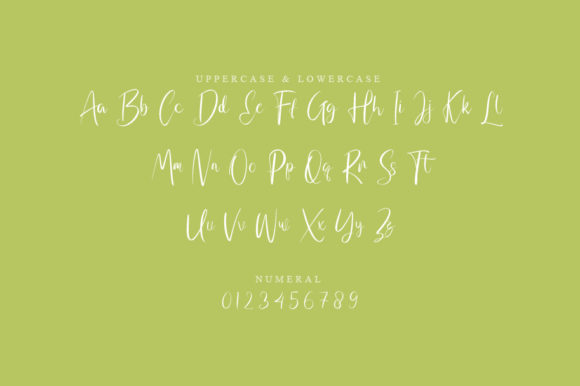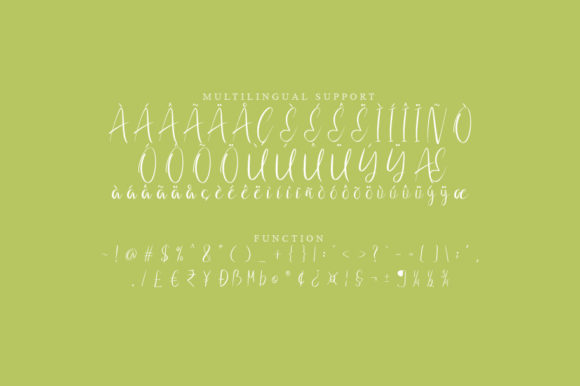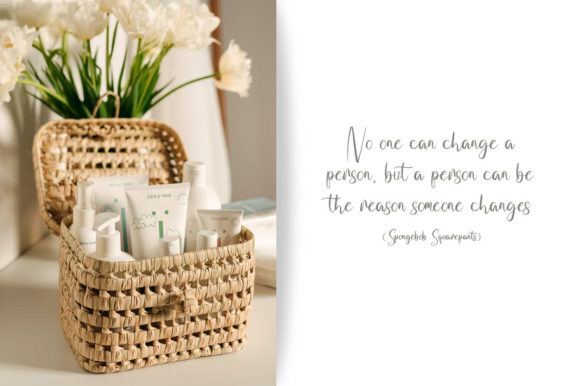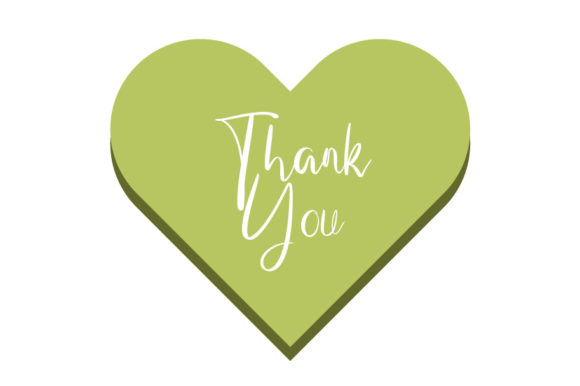
Erety Script Font: Elevate Your Designs with a Timeless Handwritten Touch
In the world of typography, a well-chosen font can make all the difference in creating visually stunning designs. For designers and crafters looking to add a personal touch to their work, Erety Script Font is an excellent choice. This lovely and timeless handwritten font is perfect for creating eye-catching logos, branding, and quotes that stand out from the crowd.
The Unique Charm of Erety Script Font
What sets Erety Script Font apart is its distinctive and beautiful touch. Every letter has been carefully crafted to possess a unique character, giving your designs a sense of personality and flair. Whether you’re working on a logo, branding materials, or social media graphics, Erety Script Font will breathe life into your creations.
Key Features of Erety Script Font
- Handwritten Elegance: Erety Script Font boasts a natural, handwritten look that adds warmth and elegance to any design.
- Unique Letterforms: Each letter has been meticulously designed to be distinct and full of character, ensuring your designs stand out.
- Versatility: Perfect for a wide range of projects, from logos and branding to quotes and social media graphics.
- Timeless Appeal: The classic look of Erety Script Font ensures it won’t go out of style, making it a valuable asset for your design library.
Uses of Erety Script Font
Erety Script Font’s versatility makes it suitable for various design projects. Here are some of the best ways to utilize this beautiful font:
Logo Design
Creating a memorable logo is crucial for any brand. Erety Script Font, with its unique and elegant handwritten style, can help you craft a logo that is both distinctive and captivating. The font’s readability and charm make it ideal for logotypes that need to convey a sense of sophistication and approachability.
Branding Materials
Consistency in branding is key to establishing a strong brand identity. Using Erety Script Font across your branding materials, such as business cards, letterheads, and packaging, can help you maintain a cohesive and professional look. The font’s elegance and timelessness ensure that your brand will be perceived as refined and dependable.
Quotes and Typography
For designers and crafters who work with quotes and typographic artworks, Erety Script Font is an excellent choice. The font’s beautiful letterforms and flowing script style bring a sense of grace and emotion to any quote or message. Whether you’re creating inspirational posters, social media graphics, or personal projects, Erety Script Font will add a touch of elegance and personality.
Tips for Using Erety Script Font
To get the most out of Erety Script Font, consider the following tips:
- Pair with Complementary Fonts: For maximum impact, pair Erety Script Font with simple, sans-serif fonts to create contrast and highlight the unique qualities of the script font.
- Adjust Letter Spacing: Fine-tune the letter spacing to ensure optimal readability and aesthetic appeal, especially in longer texts.
- Experiment with Colors: Erety Script Font looks stunning in a variety of colors. Experiment with different hues to find the perfect match for your design.
Erety Script Font is a versatile and beautiful handwritten font that can elevate your designs to new heights. With its unique letterforms, elegant style, and timeless appeal, it’s an excellent choice for designers and crafters looking to create eye-catching logos, branding materials, and typographic artworks. By incorporating Erety Script Font into your design toolkit, you’ll be able to craft stunning visuals that capture attention and leave a lasting impression.